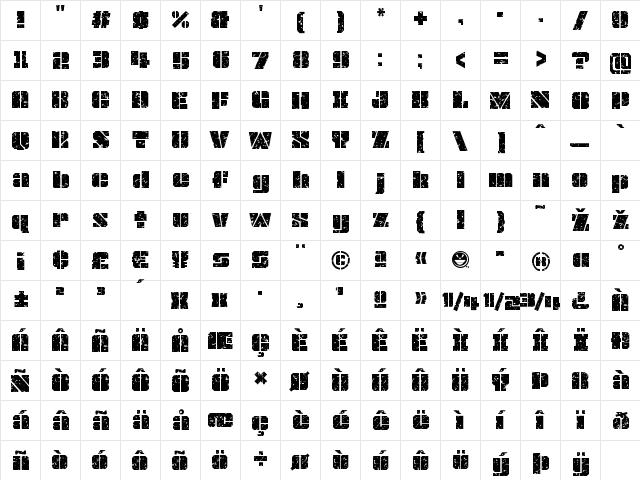
JLS OverKill Grunge Regular
Design Context for JLS OverKill Grunge Typeface
JLS OverKill Grunge trades polish for personality, using distressed and eroded forms to bring grit and attitude to creative work.
Suited to punk-influenced zines, underground music branding, streetwear, and raw, anti-corporate design.
Pro Tip: Pair JLS OverKill Grunge with intentionally raw or lo-fi design elements. Fighting against it with overly polished surroundings will undermine its personality.